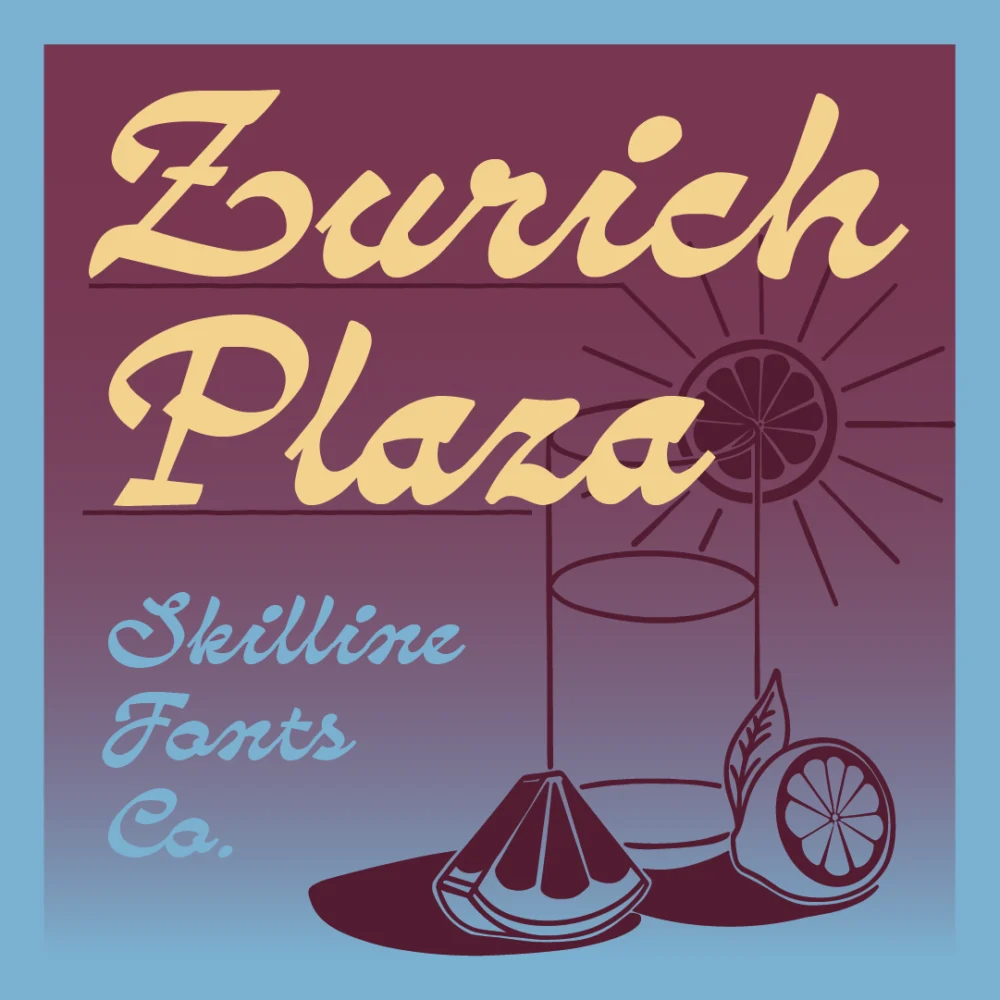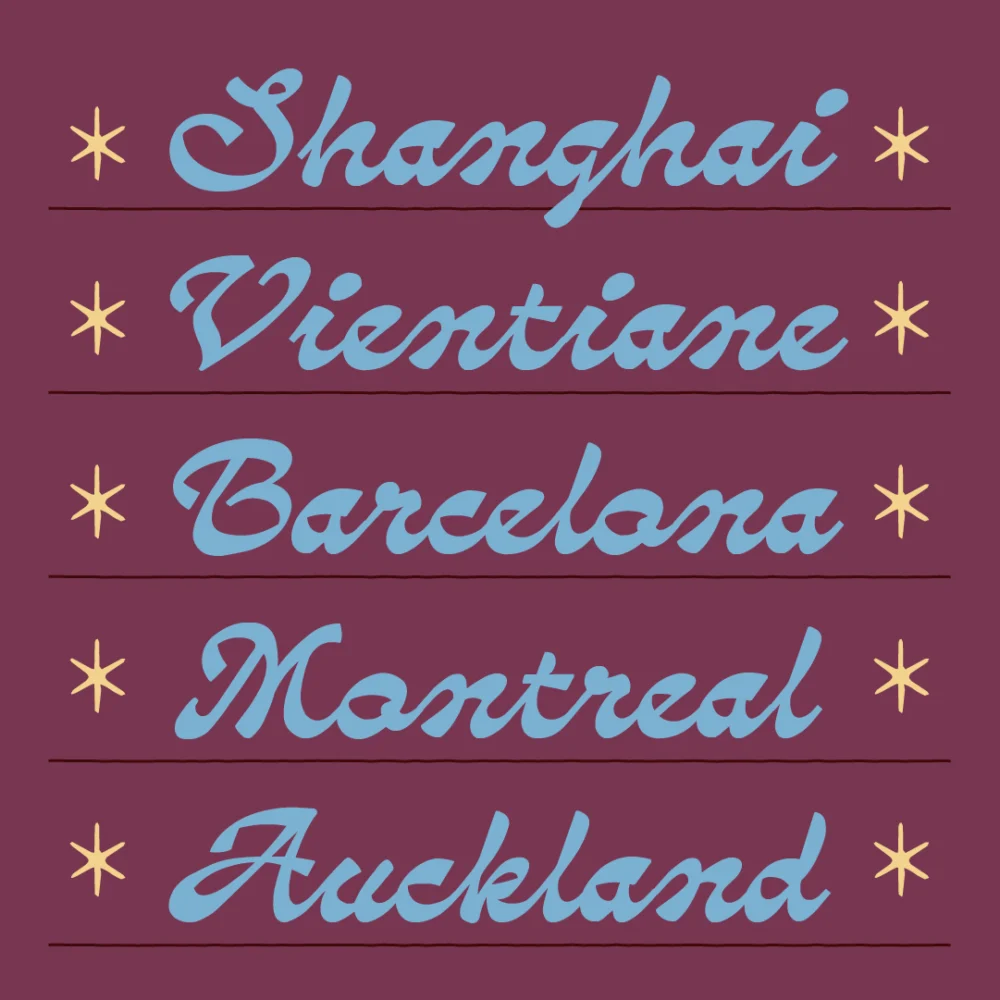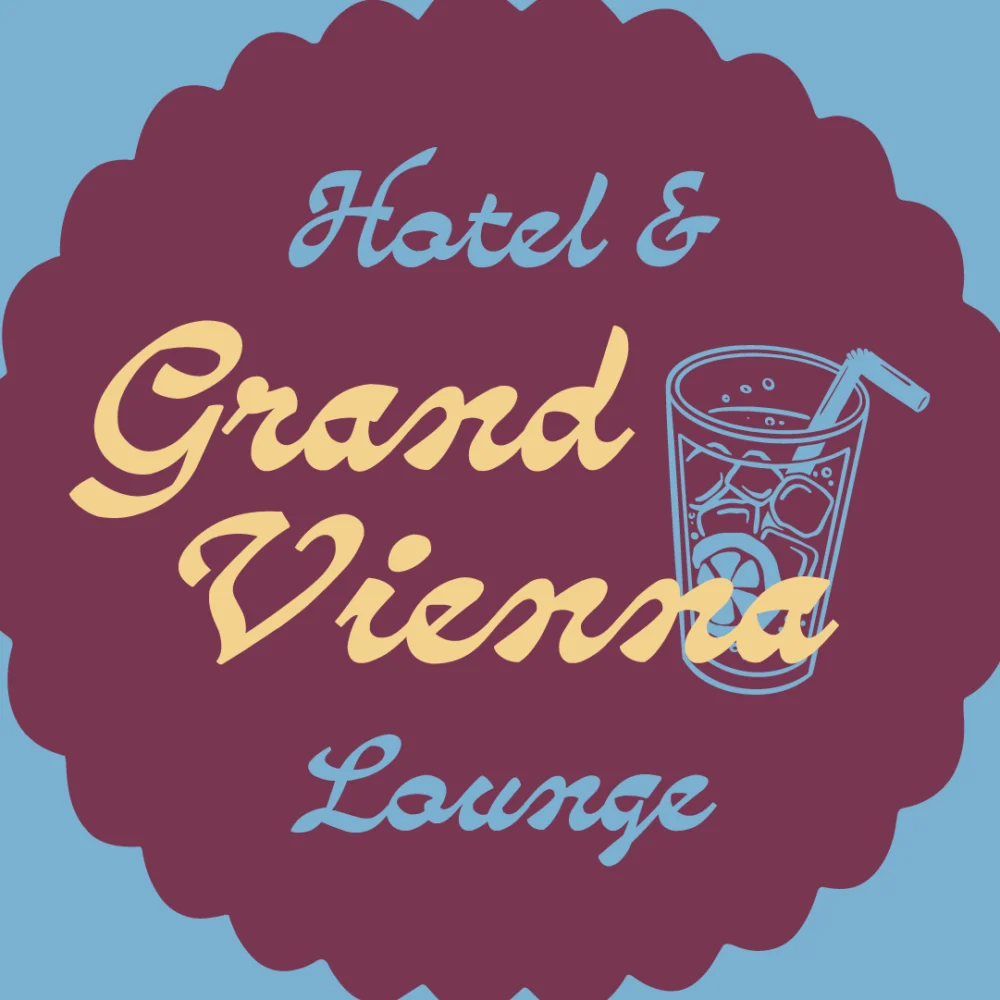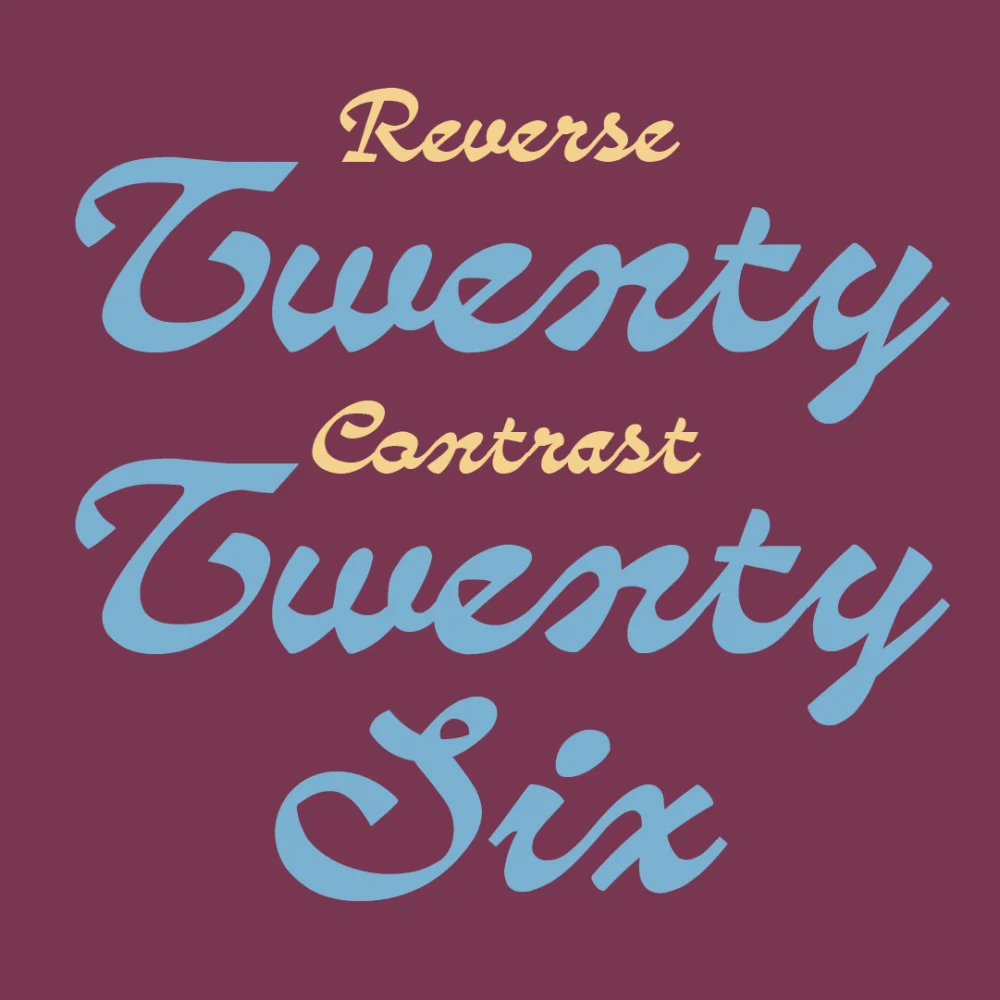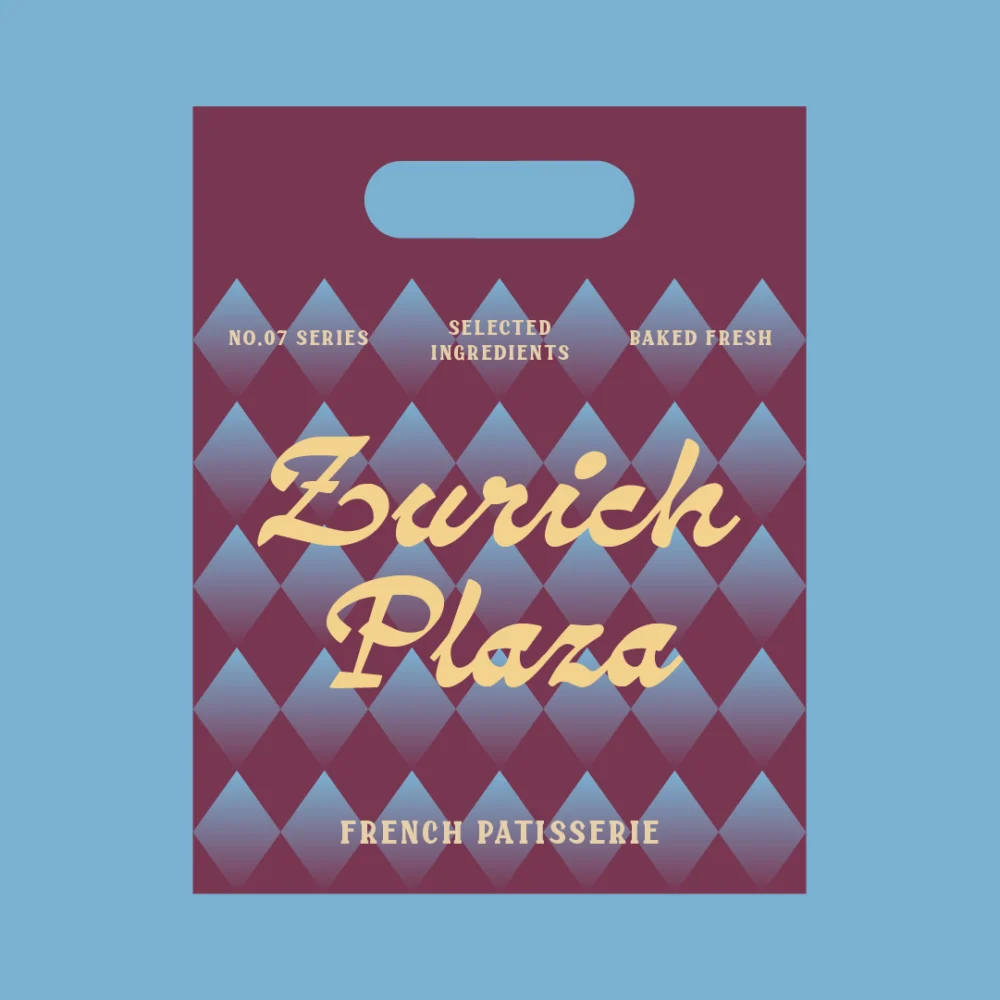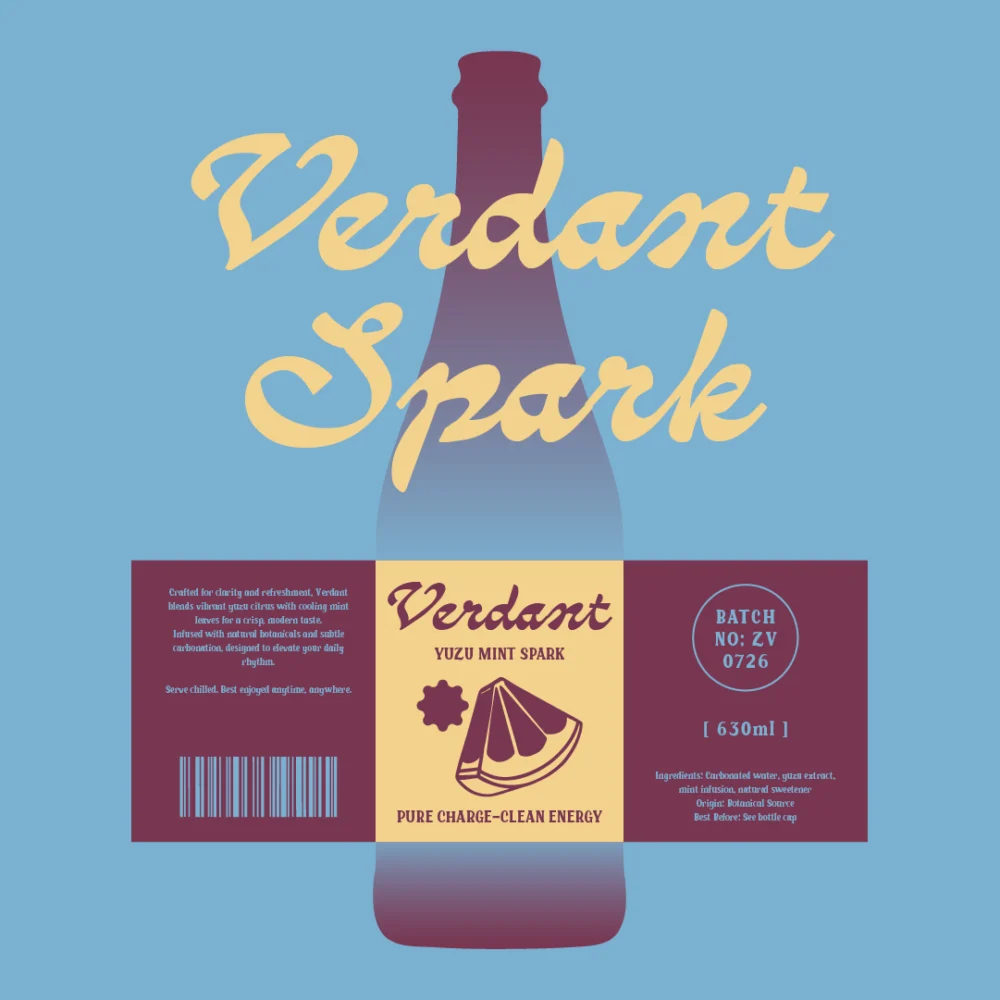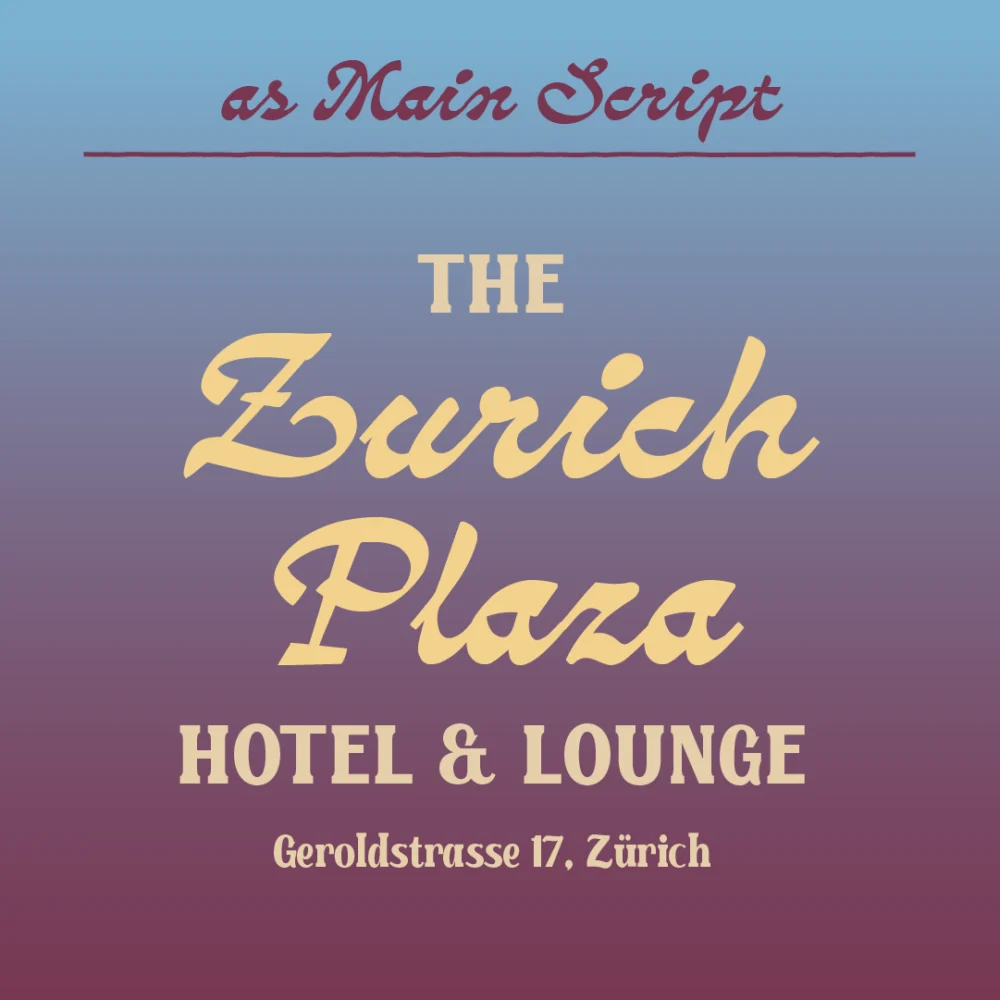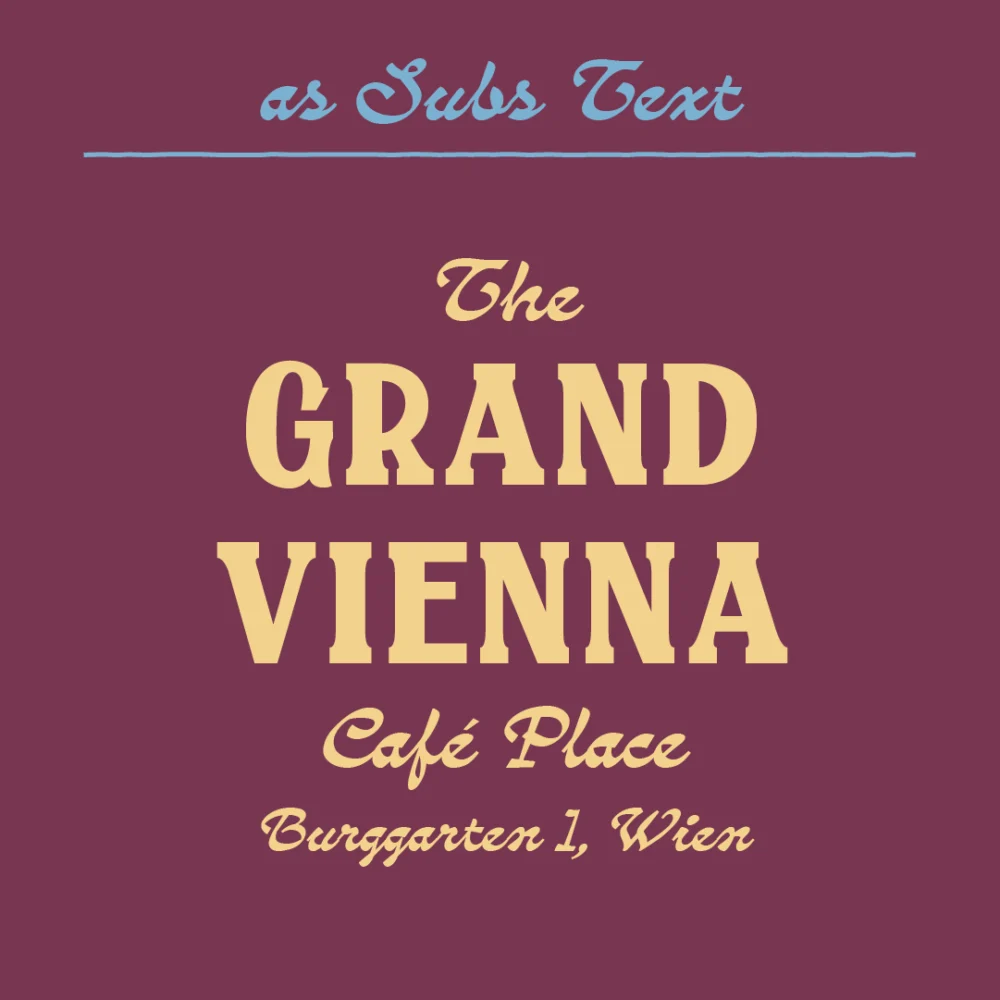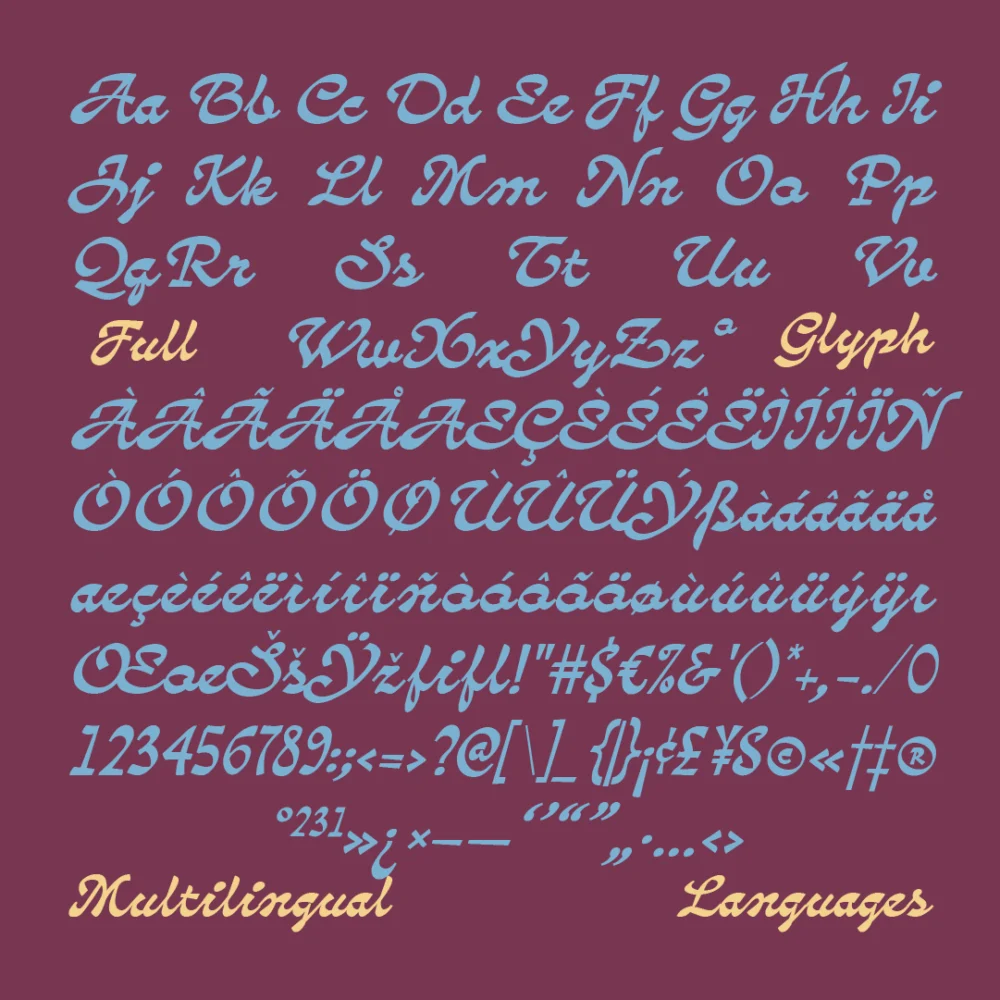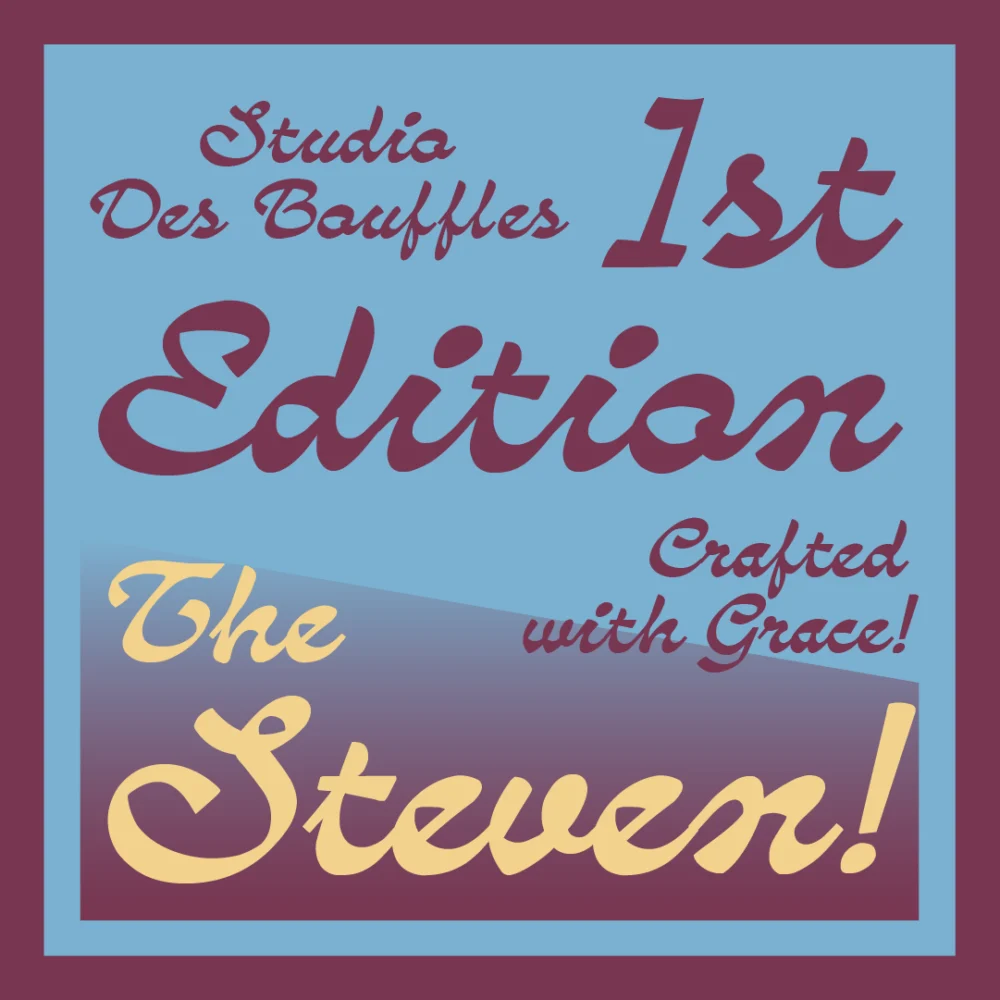
Bring warmth and timeless charm to your typography with Zurich Plaza, a handcrafted vintage script font inspired by classic European cafés, boutique hotels, neighborhood bakeries, and traditional storefront signage. Designed with smooth flowing strokes and confident curves, Zurich Plaza captures the elegance of hand-painted lettering while remaining clean and highly readable. Its versatile character pairs beautifully with bold serif or display fonts, making it a natural choice for logos, packaging, menus, editorial layouts, signage, and hospitality branding. From artisan food packaging and café branding to hotel identities, lifestyle products, and promotional materials, Zurich Plaza adds an authentic handcrafted touch without overpowering your design.
- Vintage Script Typeface
- Smooth Handcrafted Letterforms
- Uppercase, Lowercase, Numerals & Punctuation
- Multilingual Support